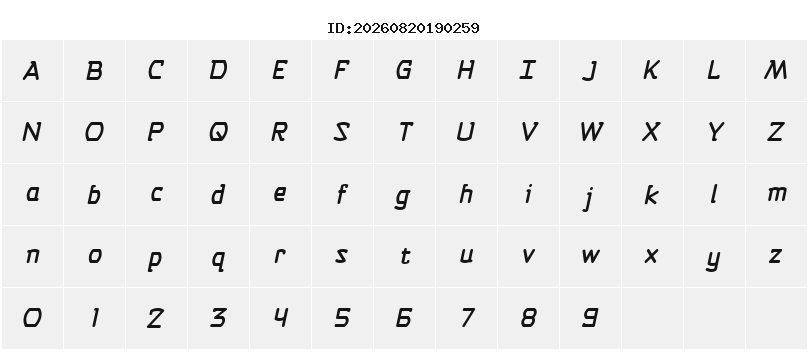
Self Destruct Button BB Preview
• Font Name: Self Destruct Button BB
• Font ID: NatePiekos.Blambot.com: Self Destruct Button BB Italic: 2008
• Full Font Name: Self Destruct Button BB Italic
• PostScript Name: SelfDestructButtonBB-Italic
• Designer: Nate Piekos
• Manufacturer: Nate Piekos. Blambot.com
About Self Destruct Button BB.ttf
Self Destruct Button BB.ttf is a modern, elegant sans-serif font designed for ultimate readability and visual harmony. Perfect for branding, headlines, web design, and print materials.